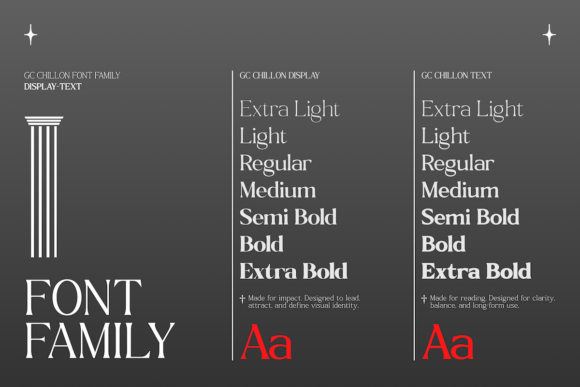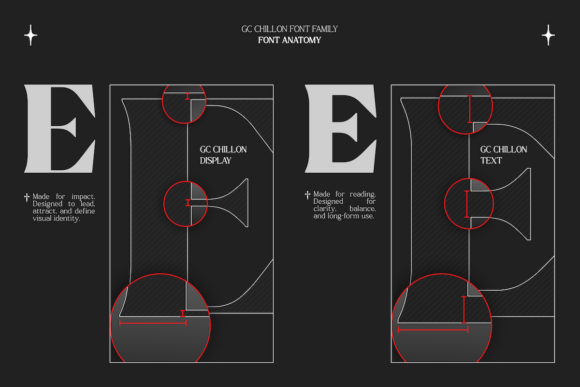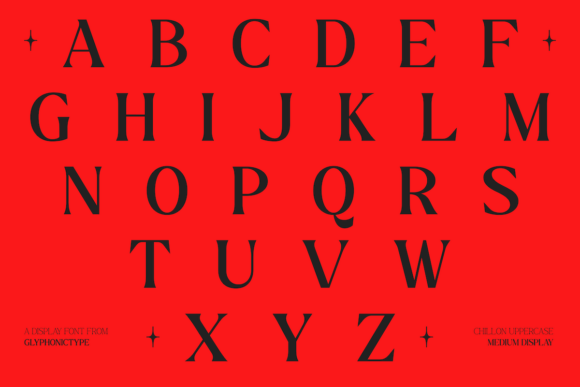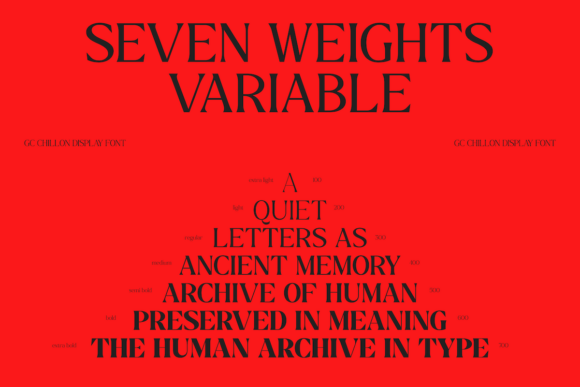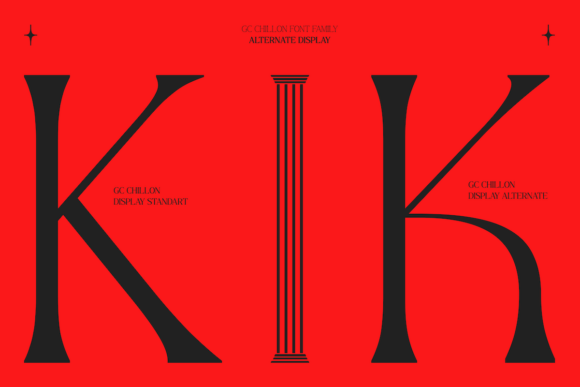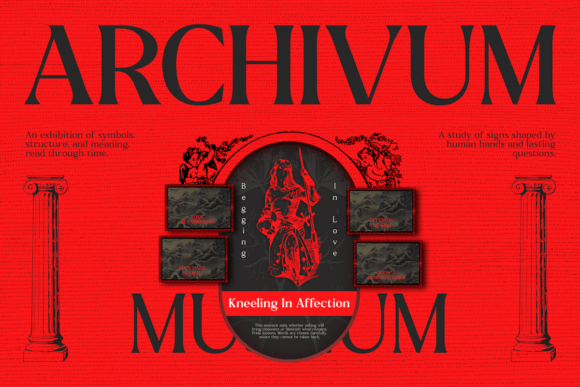
The GC Chillon Font: Elevating Typography with Elegance and Character
Have you ever been in the midst of working on a design project, only to find yourself stuck on one crucial element: the font? I recall a recent experience where I was tasked with creating a luxury brand’s visual identity. The client wanted a font that exuded sophistication, elegance, and a touch of modernity. After scouring through numerous typefaces, I stumbled upon **GC Chillon**, and it instantly became the perfect fit. In this article, we’ll dive into the world of GC Chillon, exploring its features, uses, and what makes it an excellent addition to any designer’s toolkit.
A Closer Look at GC Chillon
**GC Chillon – Stylish Serif Text Display** is a sophisticated serif typeface that brings a perfect blend of classic sensibility and modern flair. Its refined proportions and stylish details make it an excellent choice for creating elegant and impactful typography. Whether you’re working on branding, editorial design, headlines, posters, or luxury-oriented visuals, GC Chillon is designed to deliver.
- ✨ Elegant and refined design: GC Chillon boasts a sophisticated look that instantly elevates any design.
- ✅ Versatility: From bold headlines to refined typographic hierarchies, GC Chillon adapts effortlessly.
- 💡 Expressive charm: The typeface offers a unique blend of classic and modern elements, making it perfect for creating eye-catching compositions.
- 📚 Readability: Despite its decorative nuances, GC Chillon ensures readability, making it suitable for both statement typography and polished layouts.
- 🤔 Limited use in body text: While GC Chillon excels in display settings, it might not be the best choice for lengthy body text due to its decorative nature.
- ⚠️ Requires careful pairing: To maximize its impact, GC Chillon needs to be paired thoughtfully with other fonts to avoid visual conflicts.
Designer Inspiration: The Story Behind GC Chillon
The story behind GC Chillon begins with a passion for typography and a desire to create a font that embodies elegance and sophistication. The designer, inspired by classic serif typefaces, sought to craft a modern font that would deliver a unique voice in contemporary typography. Through careful attention to detail and a commitment to excellence, GC Chillon was born – a font that effortlessly balances classic sensibility with modern flair.
Q: What is GC Chillon?
A: GC Chillon is a sophisticated serif typeface designed for elegant and impactful typography. It’s perfect for branding, editorial design, headlines, posters, and luxury-oriented visuals.
Q: Is GC Chillon suitable for body text?
A: While GC Chillon excels in display settings, it might not be the best choice for lengthy body text due to its decorative nature.